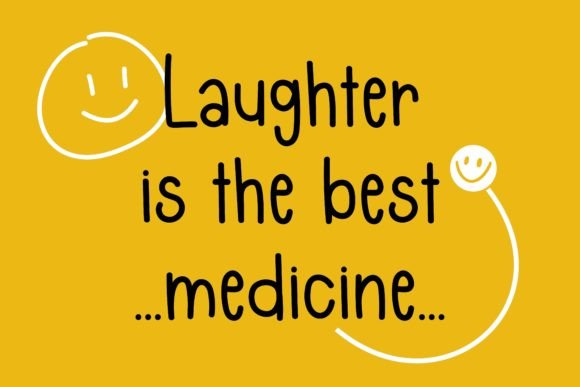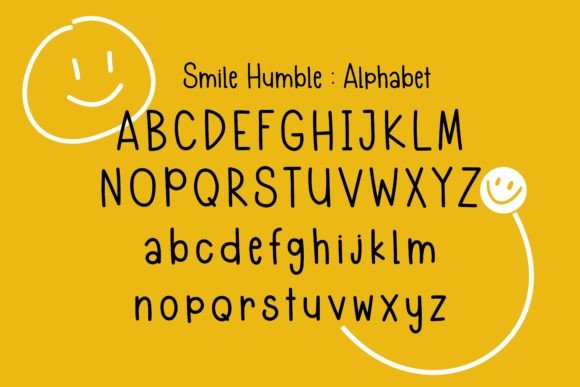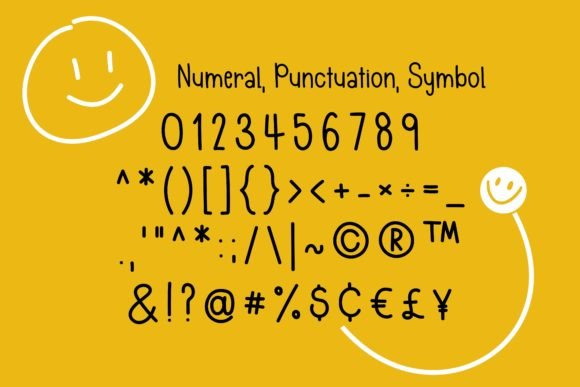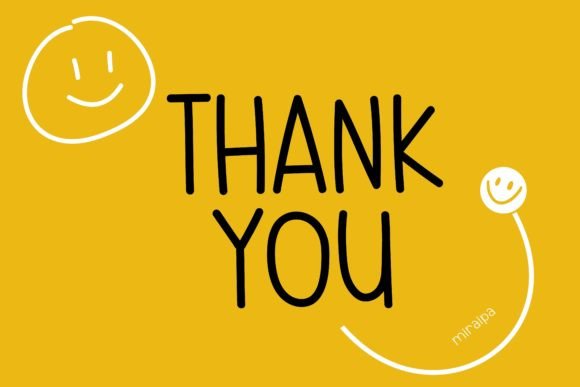
Introduction to Smile Humble Font
As a designer, there’s nothing quite like the thrill of finding the perfect font to bring your creative project to life. It’s that moment when all the pieces fall into place, and your design starts to shine. For me, it was the discovery of the Smile Humble Font – a sweet and friendly handwritten sans serif font that instantly added a touch of warmth to my design.
Whether you’re working on a high-quality design resource, a crafty DIY project, or a simple yet effective visual aid, Smile Humble Font is an excellent choice. Its unique, hand-drawn style is perfect for creating a transparent background that lets your message shine. And the best part? It’s available for free download, making it an invaluable asset for designers of all levels.
So, what makes Smile Humble Font so valuable to designers? Its versatility, for starters. This font is perfect for adding a personal touch to your creative projects, from greeting cards to social media graphics. With its high-quality design and friendly feel, Smile Humble Font is sure to become your go-to choice for any project that requires a little extra charm.
Key Features of Smile Humble Font
- Unique Blend of Whimsy and Sophistication: Smile Humble Font combines playful and elegant elements, making it an ideal choice for creative projects.
- High-Quality Design Resource: This font is crafted with precision, ensuring a crisp and clear appearance on various mediums.
- Transparent Background: Smile Humble Font features a transparent background, allowing for seamless integration with any design or image.
- Perfect for Creative Projects: Smile Humble Font is ideal for various creative projects, including branding, advertising, and editorial design.
Honest Review: Smile Humble Font
As a designer, I’m always on the lookout for high-quality design resources to enhance my creative projects. I recently had the chance to try out the Smile Humble Font, and I’m here to give you the lowdown.
What works well: ✨ The Smile Humble Font has a unique, modern aesthetic that’s perfect for a wide range of creative projects. It’s a great choice for anyone looking for a free download that still packs a punch. The font is also highly versatile, working well for both digital and print designs.
- High-quality design with a unique aesthetic
- Works well for both digital and print designs
However, I did encounter a few limitations: ⚠️ The font doesn’t include any transparent background options, which can be a bit of a bummer for designers who like to get creative with their designs.
Overall, I’d say the Smile Humble Font is a solid choice for designers looking for a free, high-quality font. While it may not be perfect, it’s a great resource to have in your toolkit.
Smile Humble Font
The Smile Humble Font is a versatile and stylish design resource ideal for creative projects. Its clean and modern aesthetic makes it perfect for various applications, from branding to digital media.
Getting the Most Out of Smile Humble Font
For optimal results, use the Smile Humble Font with a transparent background or a simple design to showcase its clean and modern aesthetic. Experiment with different font sizes and styles to achieve the desired effect.
The Smile Humble Font is ideal for various creative projects, including:
- Digital media and social media graphics
- Print materials and brochures